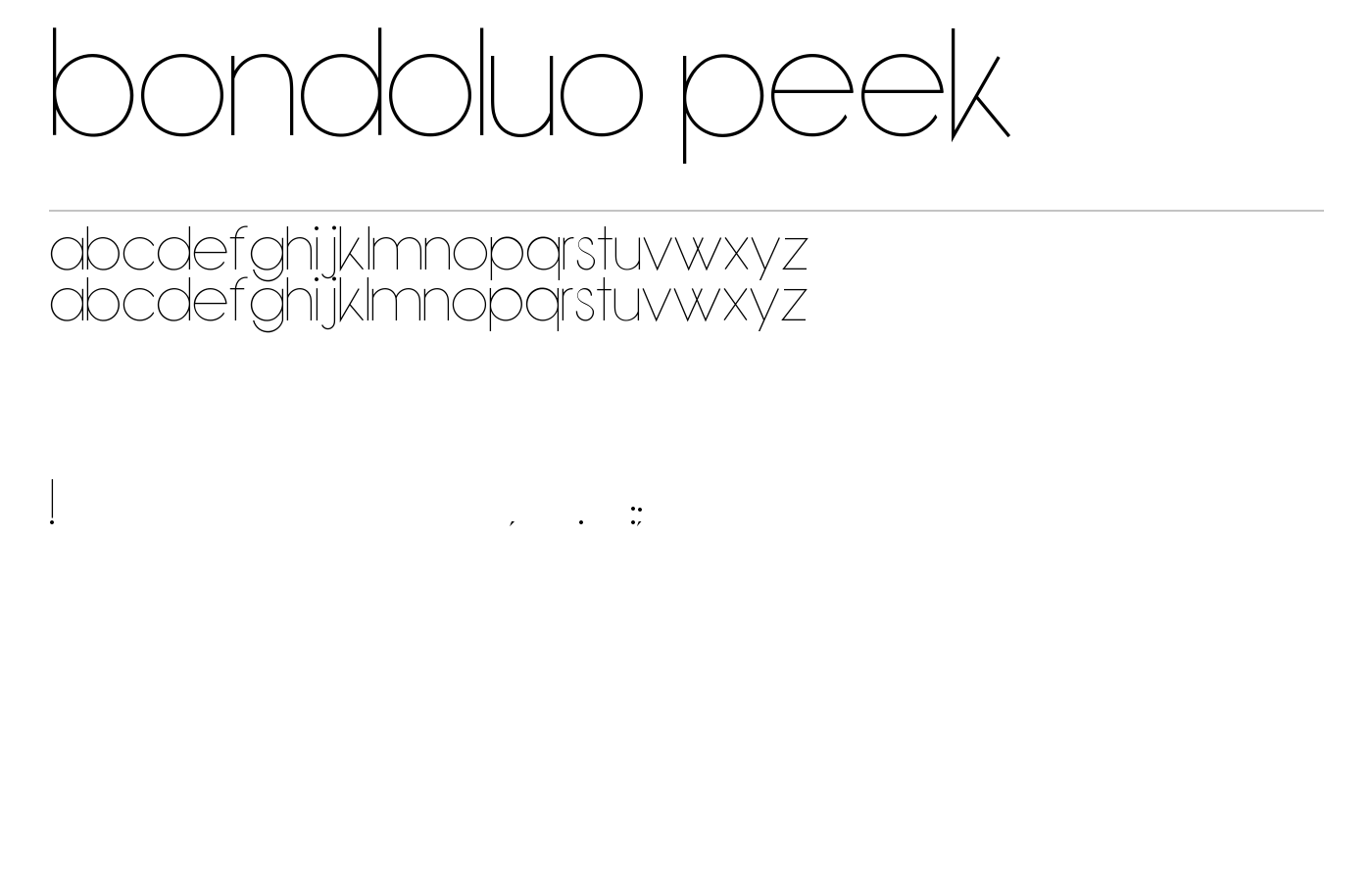
Bondoluo Peek is a sleek, ultra-thin sans serif font characterized by clean, geometric shapes and a modern minimalist style. Its tall, narrow letterforms with consistent stroke weight create a light, airy feel perfect for elegant and contemporary branding or editorial design. This font works best in large headlines and logos where its unique slender aesthetic can shine without sacrificing readability.
Bondoluo Peek Font
About Bondoluo Peek Font